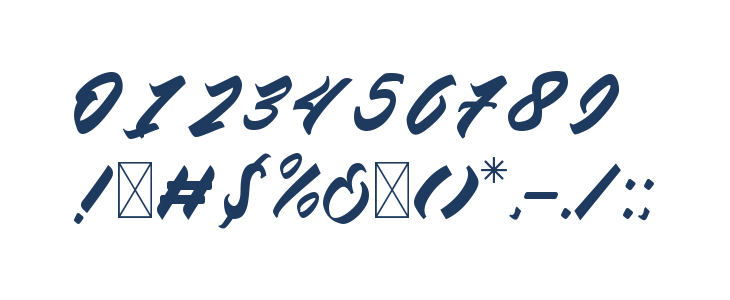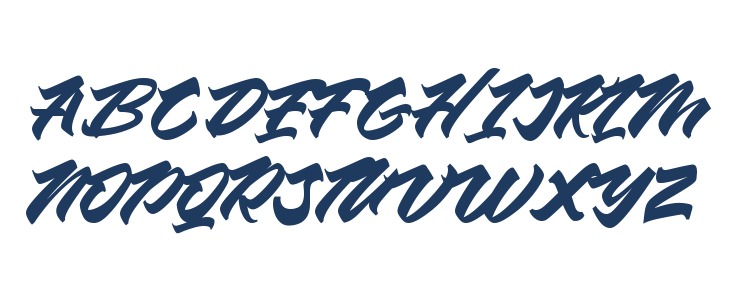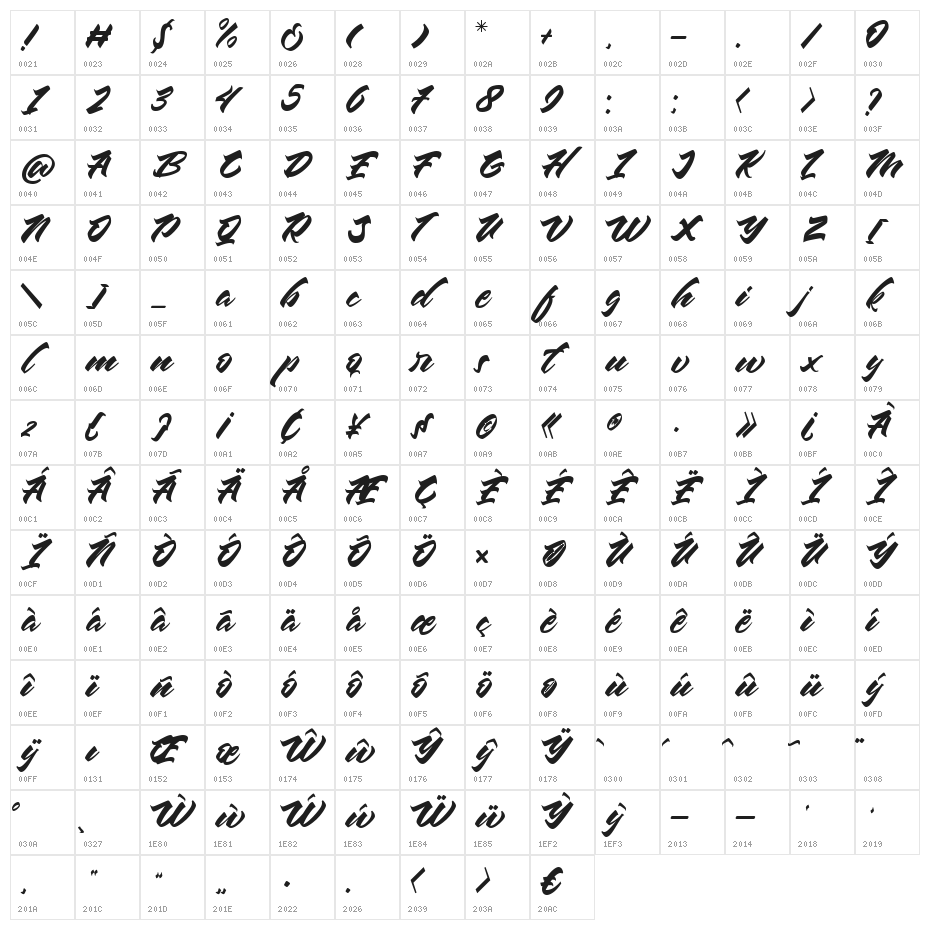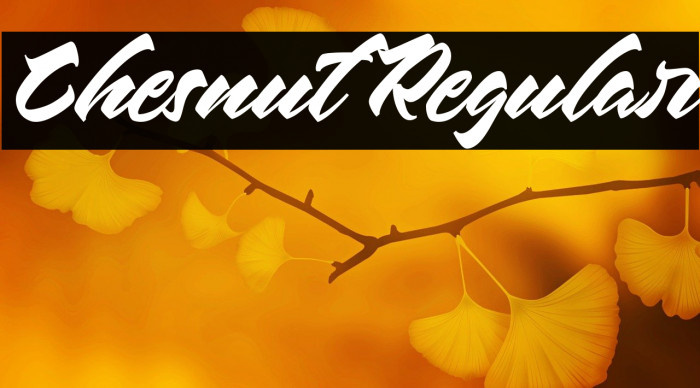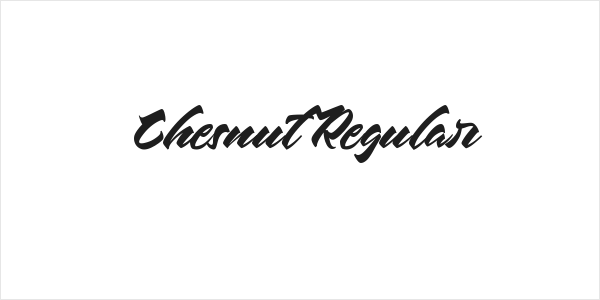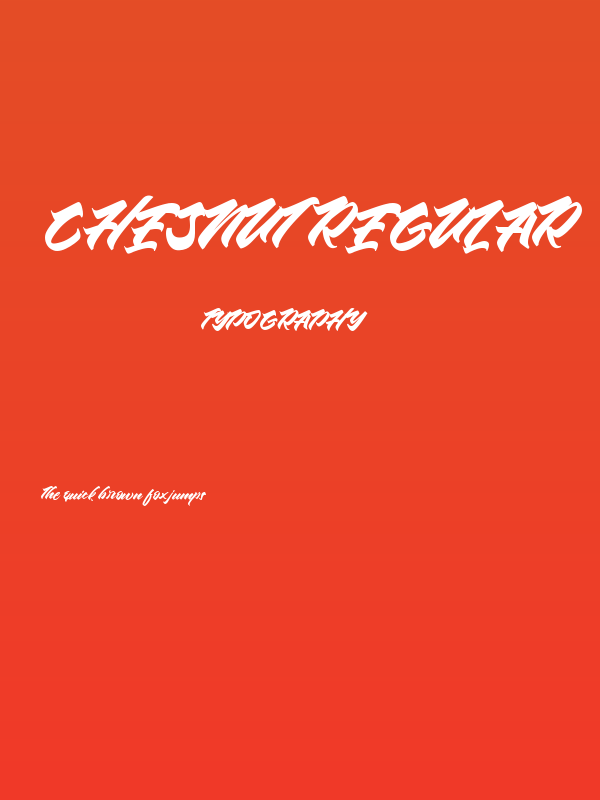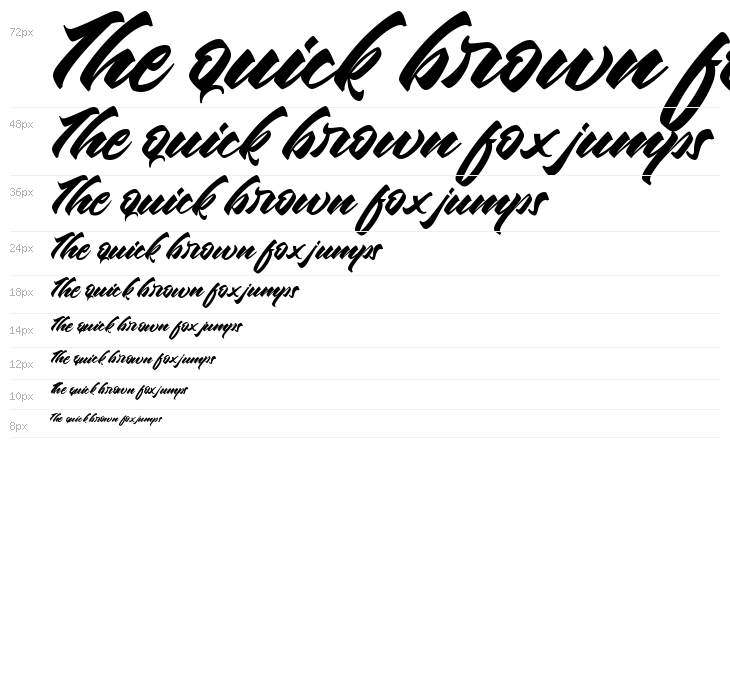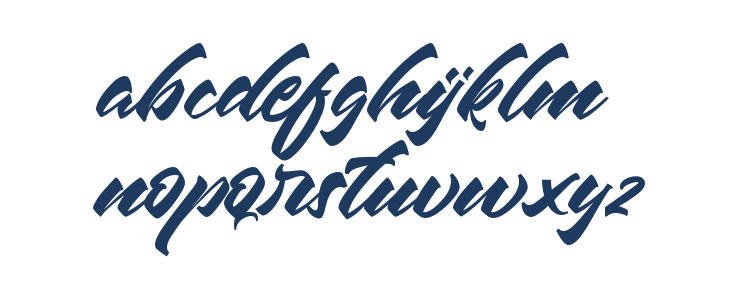
Chesnut Regular Font
Chesnut Regular Description
This font exhibits a bold and dynamic script style, characterized by its flowing, cursive letterforms that convey a sense of elegance and movement. The uppercase letters are particularly striking, with sweeping curves and dramatic flourishes that add a touch of sophistication. The lowercase letters maintain a consistent style, offering a harmonious blend with the uppercase. The numerals and special characters are designed to match the overall aesthetic, ensuring a cohesive appearance across all text. This font's bold strokes and high contrast make it stand out, while its slightly condensed width allows for efficient use of space.
| Categories | Script |
| Width | Condensed |
| Overall Style | Elegant, Decorative |
| Use Case | Logos, Invitations, Branding |
| Proposed Projects | Ideal for wedding invitations, branding projects, elegant logos, and high-end product packaging. |